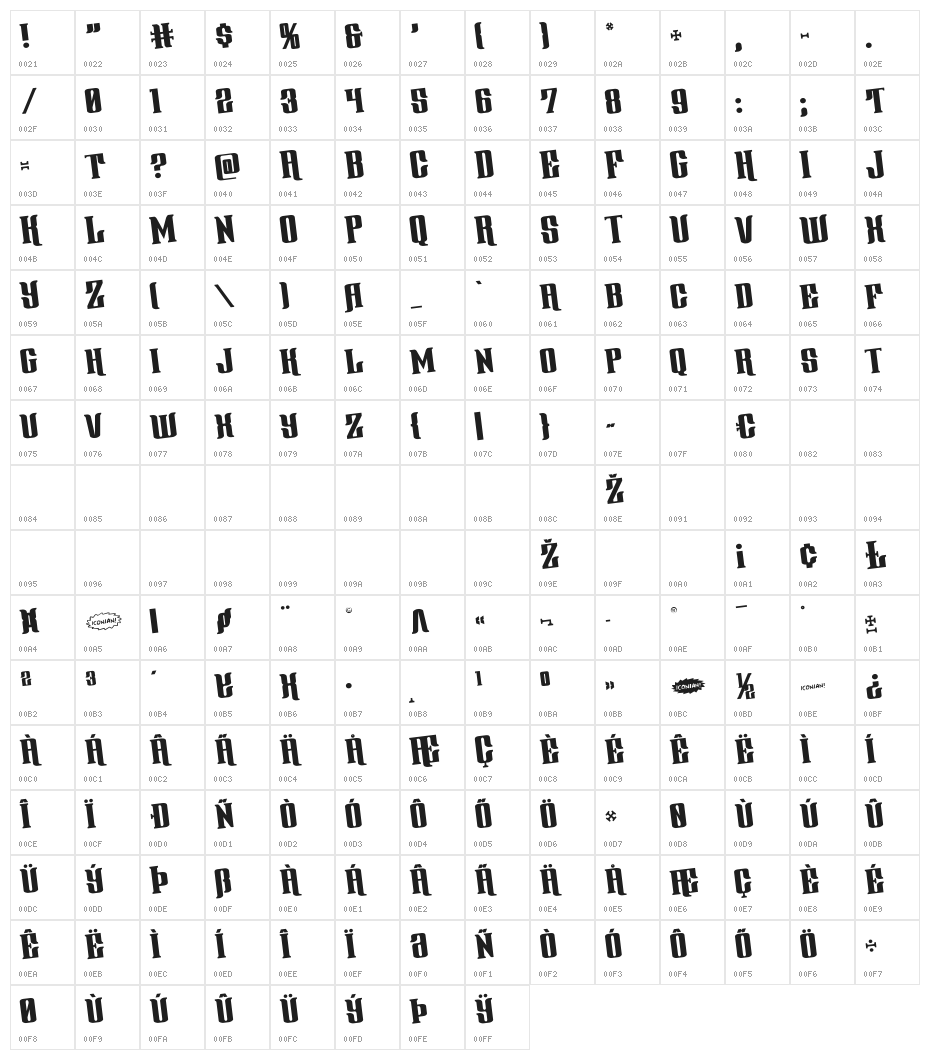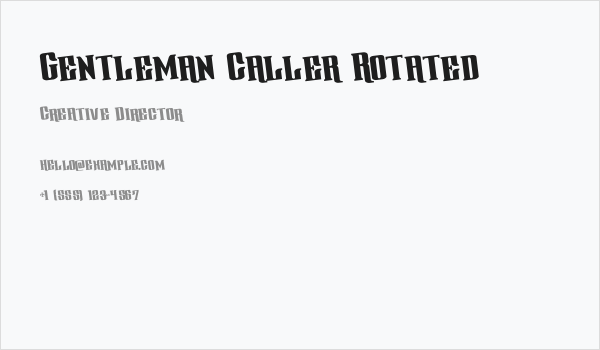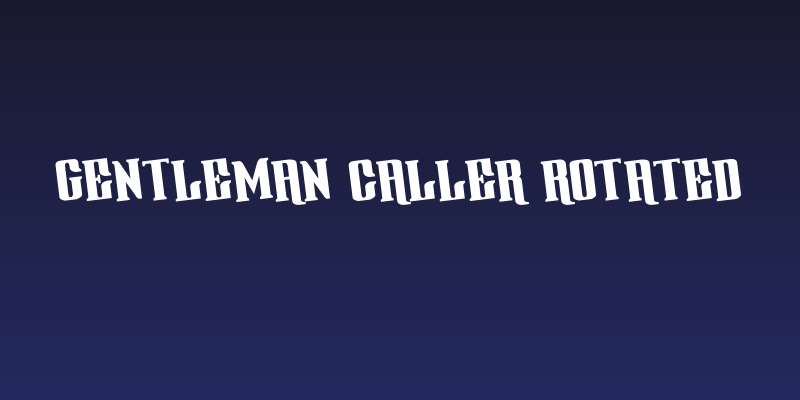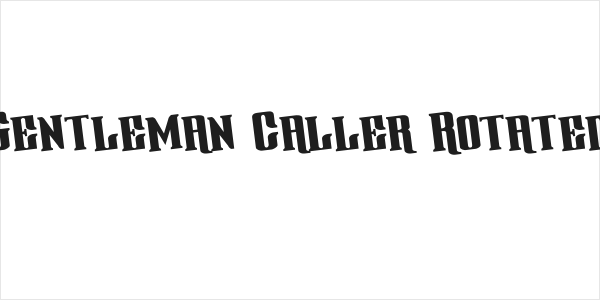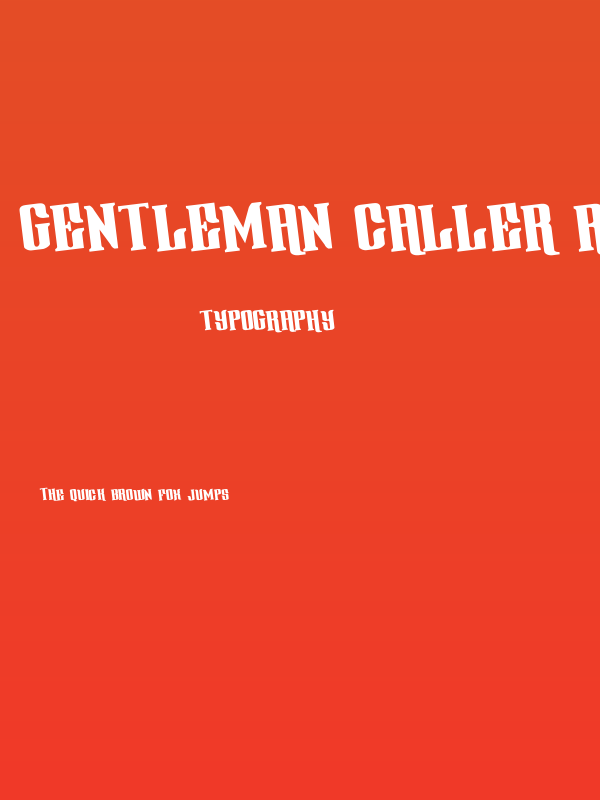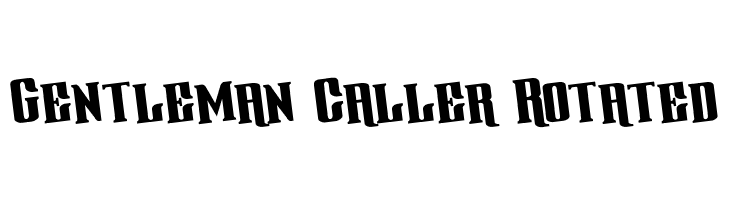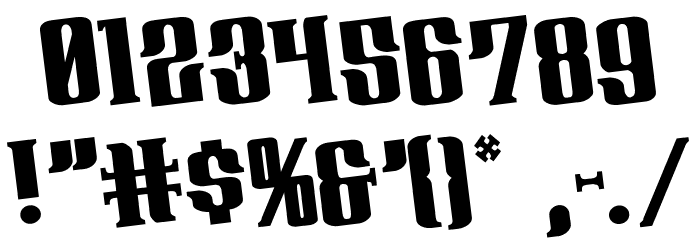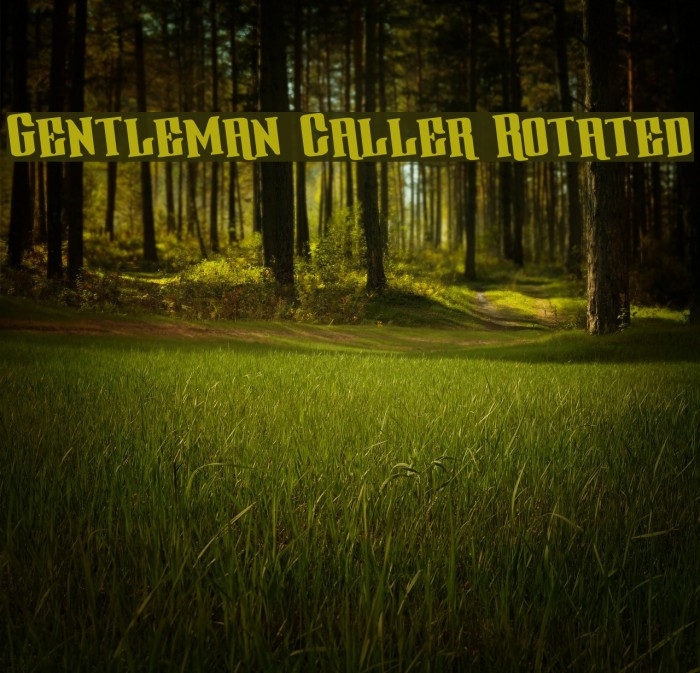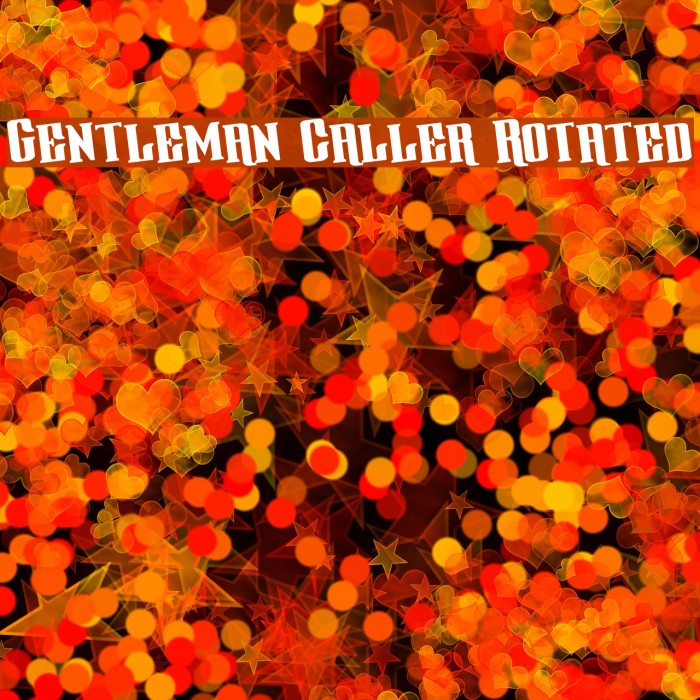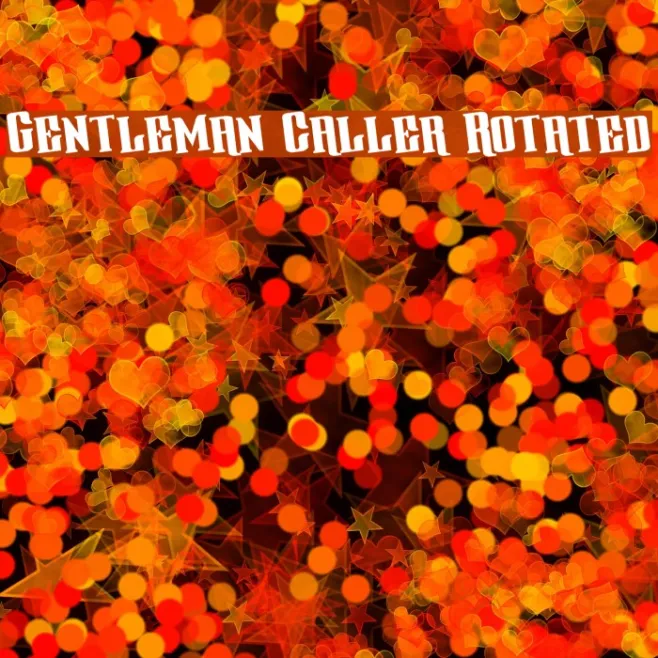
Gentleman Caller Rotated Font
Gentleman Caller Rotated Description
This font features a bold and striking design with a strong presence, characterized by thick, blocky letters that convey a sense of strength and authority. The uppercase letters are particularly prominent, with sharp angles and a slightly condensed form that enhances their impact. The lowercase letters maintain the same boldness, ensuring consistency across the typeface. Numbers and special characters are equally robust, making them suitable for attention-grabbing headlines or titles. The overall style is reminiscent of vintage or retro designs, often seen in posters or signage that require a bold statement.
| Proposed Projects | Ideal for posters, signage, branding, and any project requiring a bold, vintage aesthetic. |